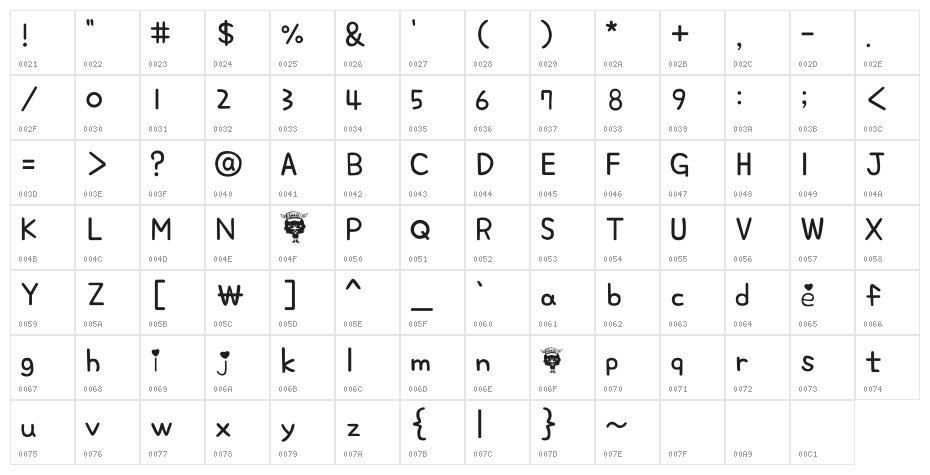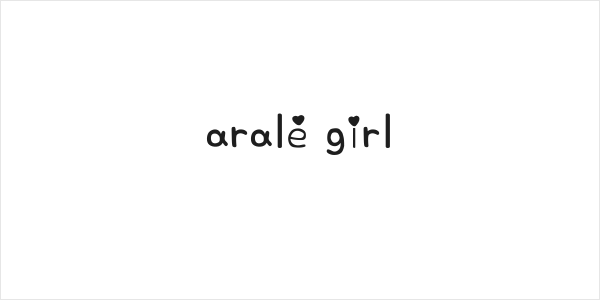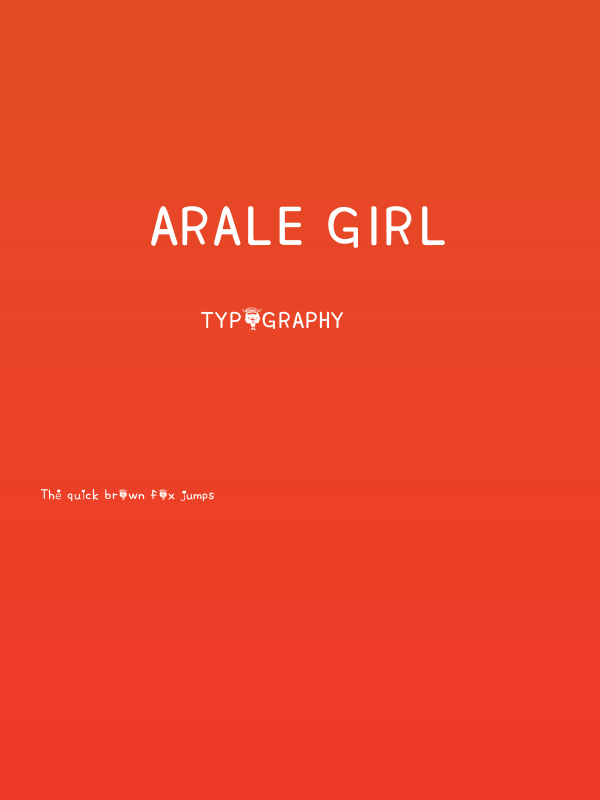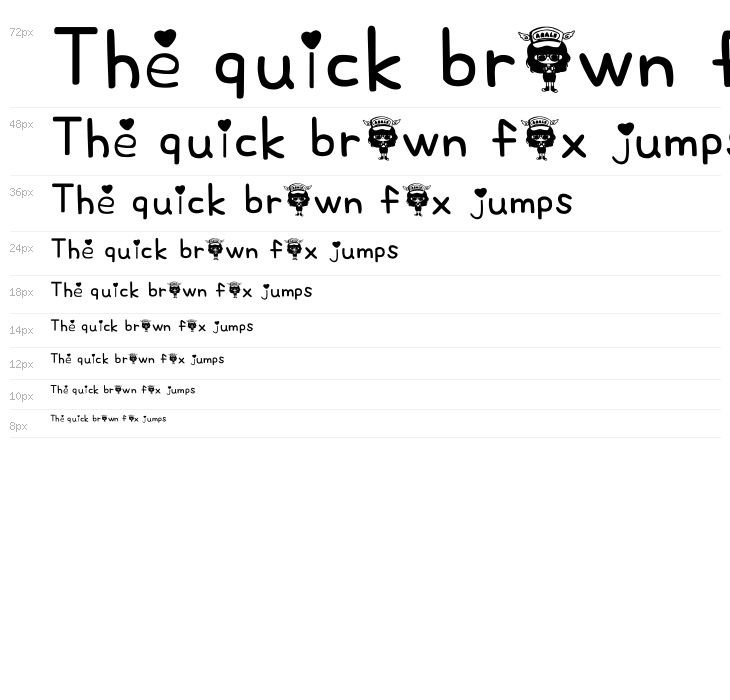
arale girl Font
arale girl Description
This playful and whimsical font features rounded, bold characters with a friendly and approachable style. The uppercase letters are uniform in height, while the lowercase letters have a charming, slightly irregular appearance. Notably, the font includes heart-shaped dots on the lowercase 'i' and 'j', adding a unique and endearing touch. The numerals are consistent with the overall rounded theme, and the special characters maintain the same playful aesthetic. This font is ideal for projects that require a fun and lighthearted feel.
| Proposed Projects | Ideal for children's books, playful branding, greeting cards, and creative posters. |